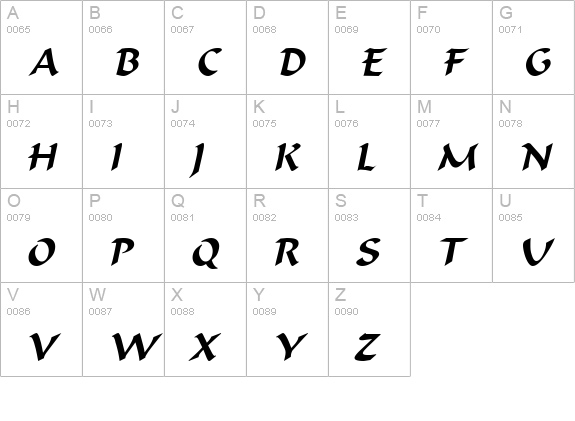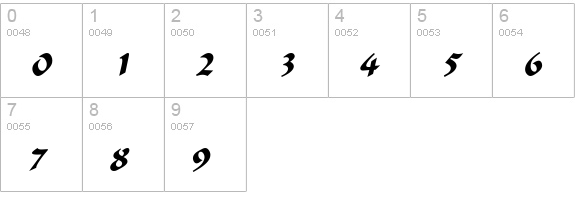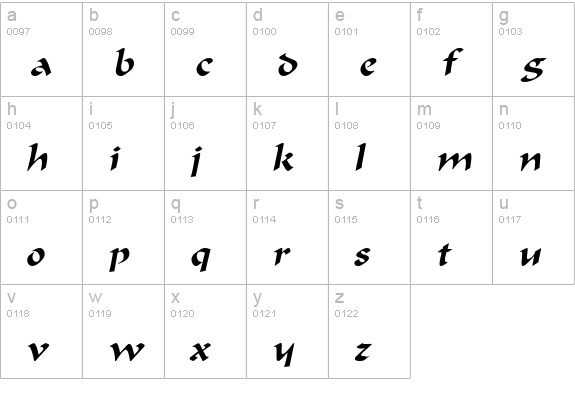
Flat Brush Wide Italic Font Details
Flat Brush Wide Italic is a distinctive, extended-width, italic variant in the Flat typeface family \xE2\x80\x94 well suited to design and typography projects.
The Flat Brush Wide Italic font is a stylish and modern typeface that brings a contemporary flair to any design project. With its bold strokes and slanted lettering, this font exudes confidence and creativity. Perfect for headlines, logos, and branding materials, Flat Brush Wide Italic adds a touch of sophistication to your designs. What makes this font even more appealing is that it is available for free download at FontsMarket.com. Whether you're a graphic designer, a small business owner, or a student working on a project, you can easily access this versatile font and elevate your creations with its unique charm. Don't miss out on the opportunity to enhance your designs with the Flat Brush Wide Italic font - download it for free today!